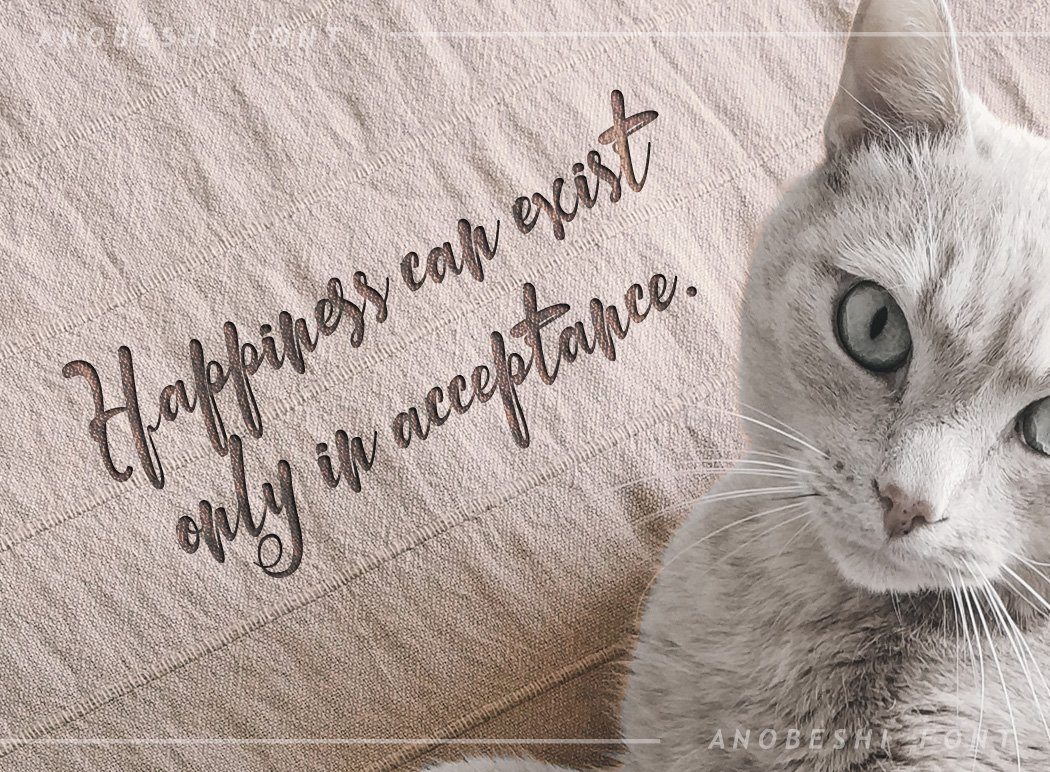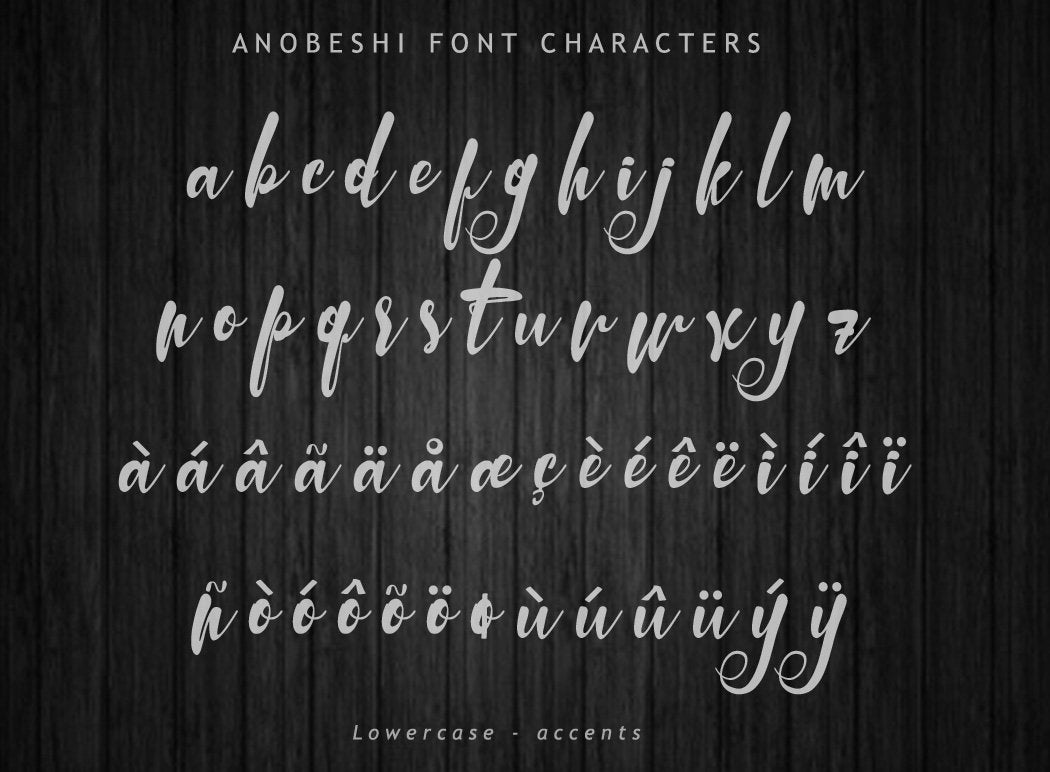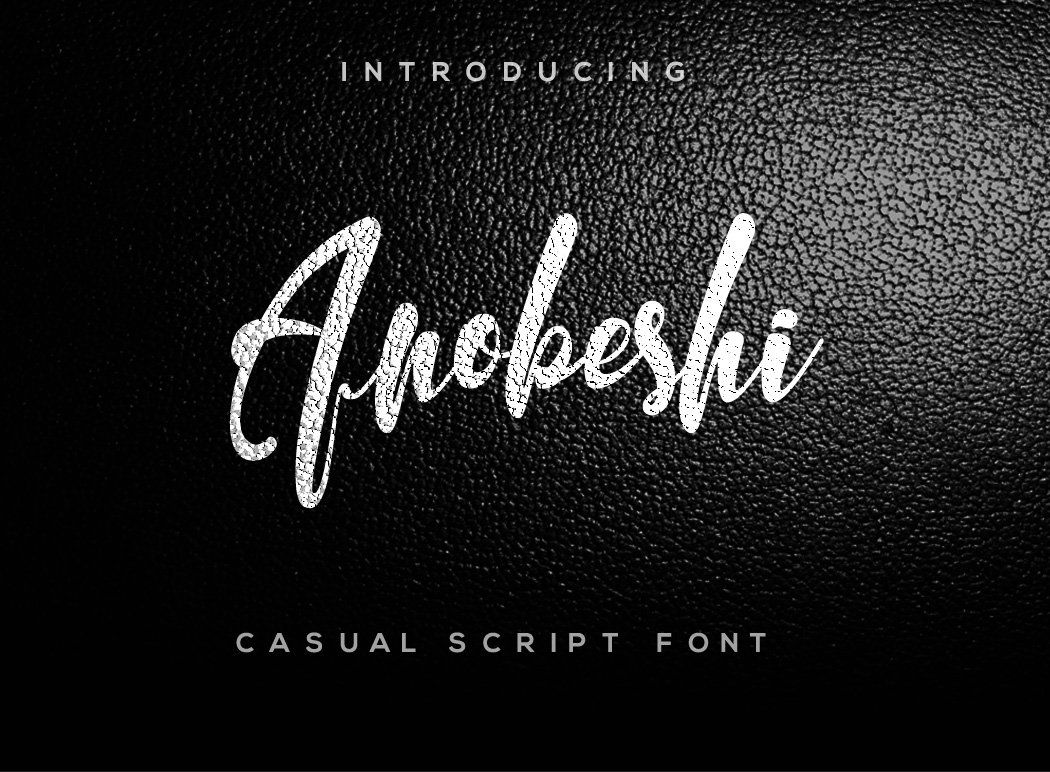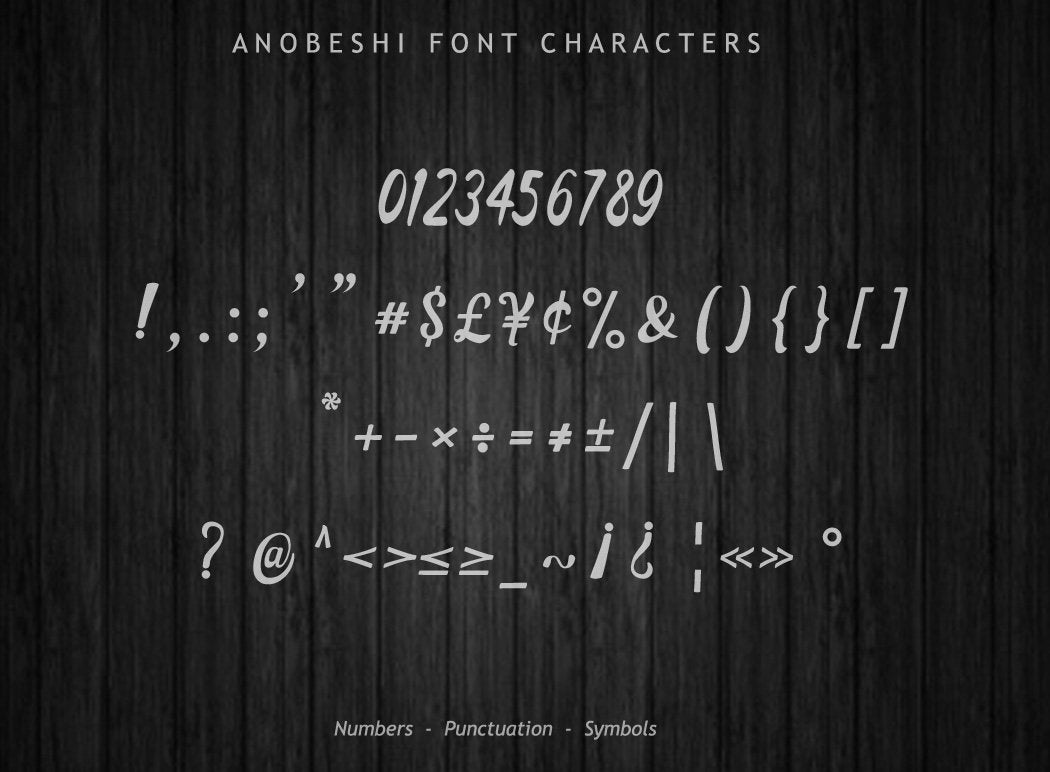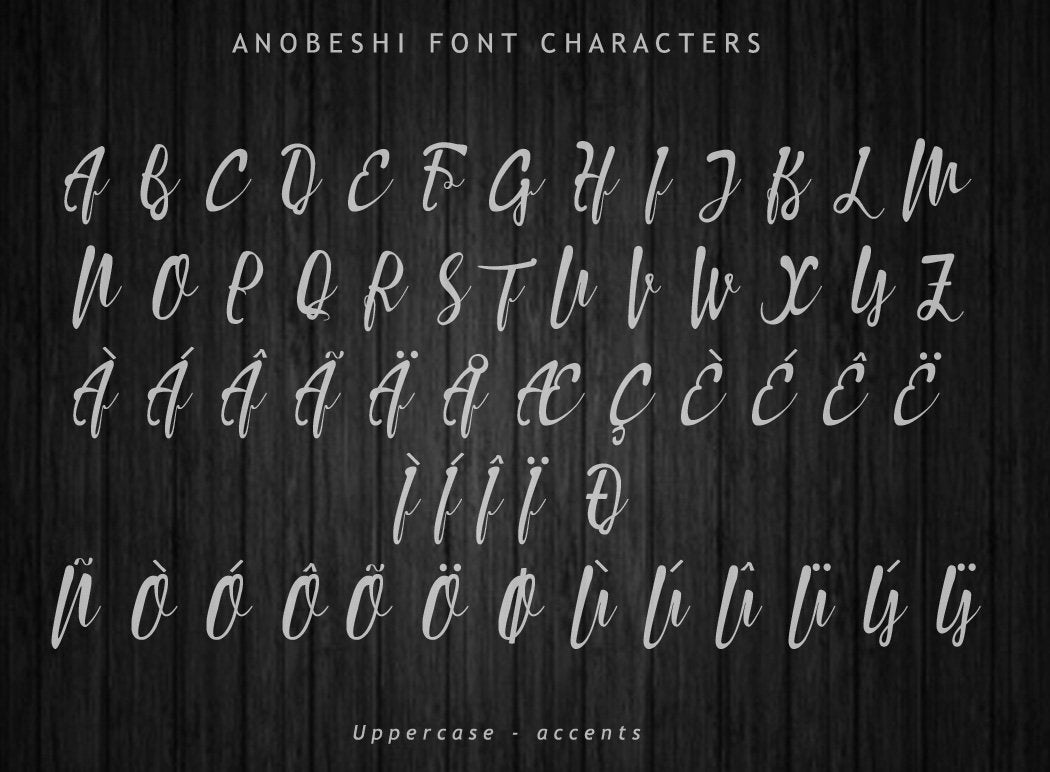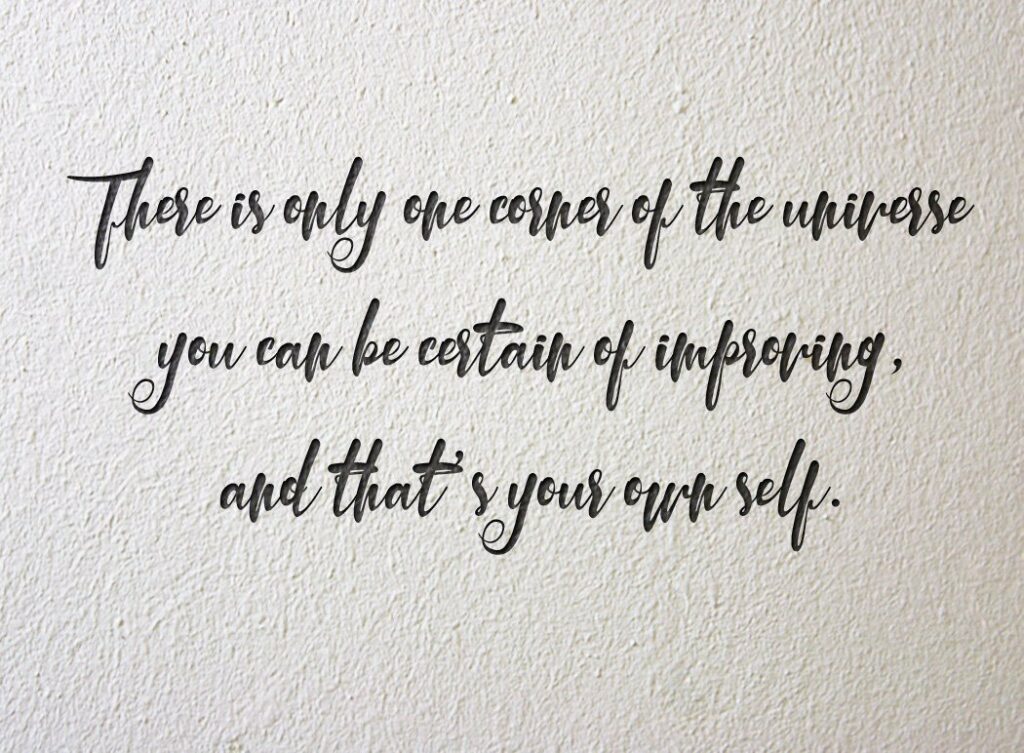
Anobeshi Font
Anobeshi Font Anobeshi is a casual script font with artistic curves. Anobeshi is an excellent choice for quotes, logotypes, branding, product packaging, wedding invites and many more. Features : Available in single OTF and TTF files Uppercase A-Z Lowercase a-z Numbers 0-9 Accents Punctuation PUA Encoded Custom Ligatures Multilingual support Support for Windows, Mac and Linux OS Make sure ligature feature in your program is enabled. If you have any questions regarding this product kindly leave your message through the contact form or contact us at . Enjoy the font!! Thank you.. Don’t forget to visit our shop and check our products out click here